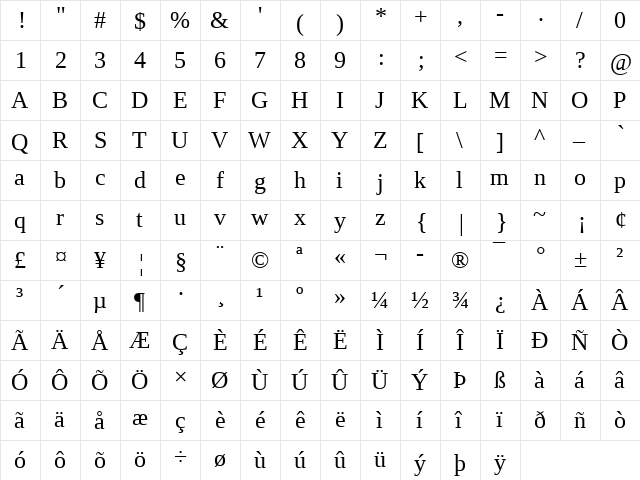
Liberation Serif Regular
| Foundry | Ascender Corporation |
| Designer | Steve Matteson |
Design Context for Liberation Serif Typeface
Liberation Serif carries the refined structure of traditional serif typography, with bracketed terminals and considered proportions that communicate credibility and craft.
Pro Tip: Use Liberation Serif for editorial body copy and considered headline work. Pair with a neutral sans for UI elements or captions to create a classic hierarchy.